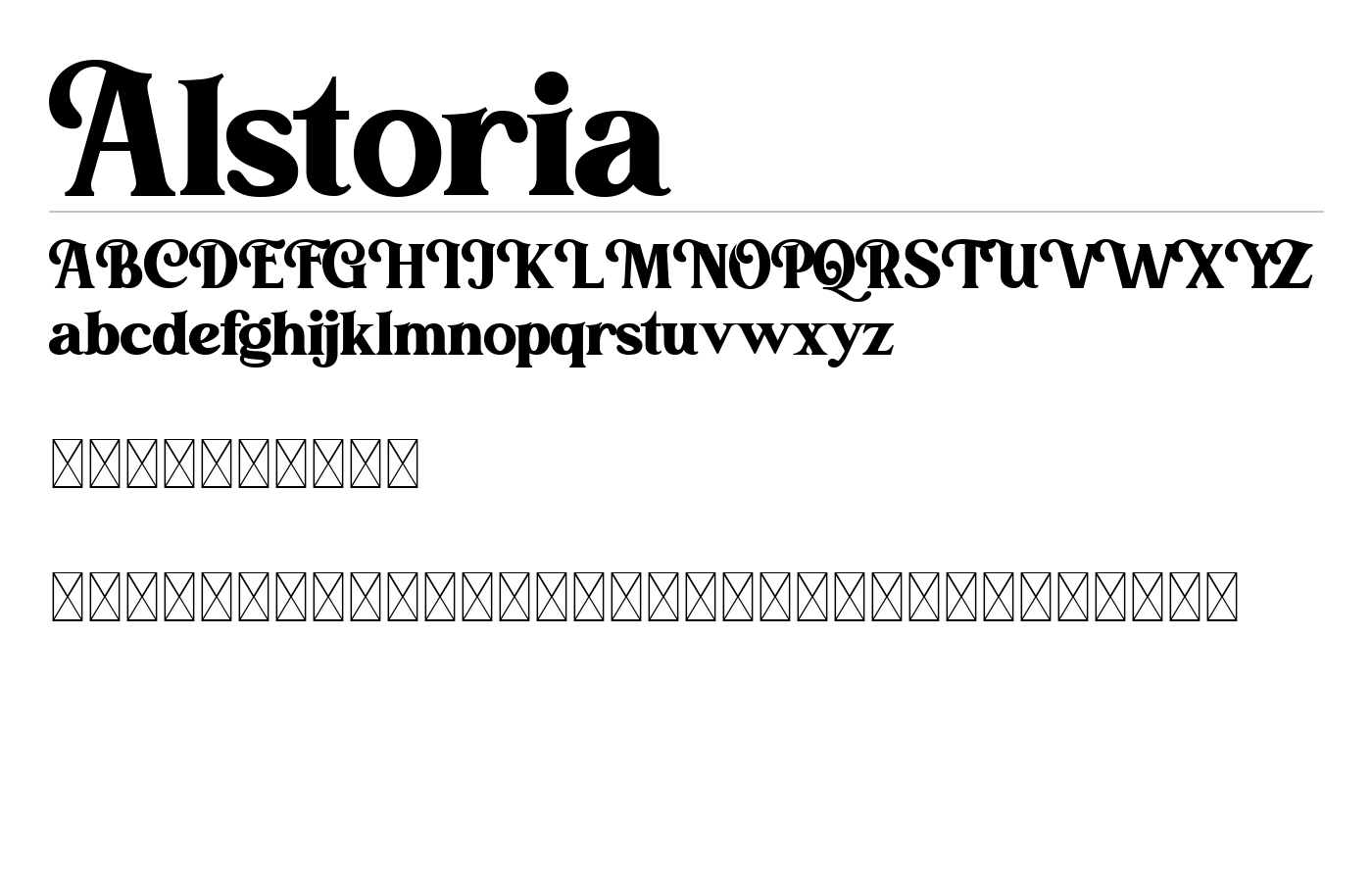
Alstoria is a bold, serif typeface with a strong presence and high contrast between thick and thin strokes that gives it an elegant yet commanding character. Its distinctive curved serifs and unique letterforms combine a vintage charm with modern readability, making it ideal for sophisticated branding, headlines, and editorial design. This font works beautifully in fashion, luxury, and creative projects where a touch of classic refinement is desired.
Alstoria Font
About Alstoria Font
| Font family | Alstoria Font |
| Designer | Bangkit Tri Setiadi & Amir Subqi Setiaji |